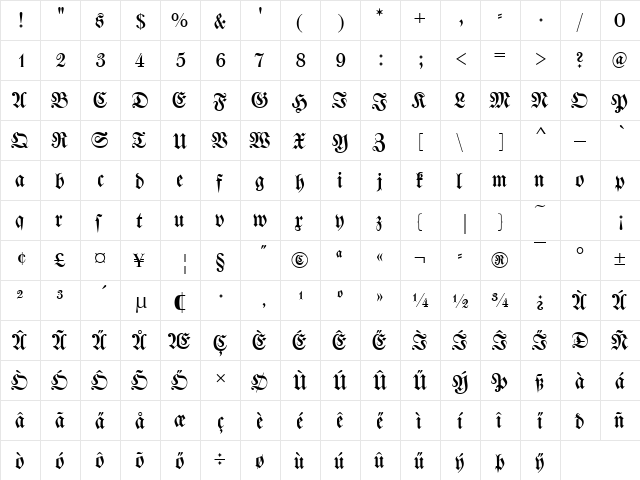
Becker Fraktur Regular
Design Context for Becker Fraktur Typeface
Becker Fraktur draws on the rich tradition of blackletter calligraphy, with dense, angular strokes that evoke medieval manuscripts and old-world craftsmanship.
Well-suited to band logos, craft beer branding, tattoo lettering, and heritage-themed identities.
Font Pairing: Pair with a clean neutral sans-serif for body copy to let Becker Fraktur's character lead without overwhelming the composition.
Pro Tip: Use Becker Fraktur sparingly at large sizes. Even a single word set in blackletter can define the visual register of an entire design.